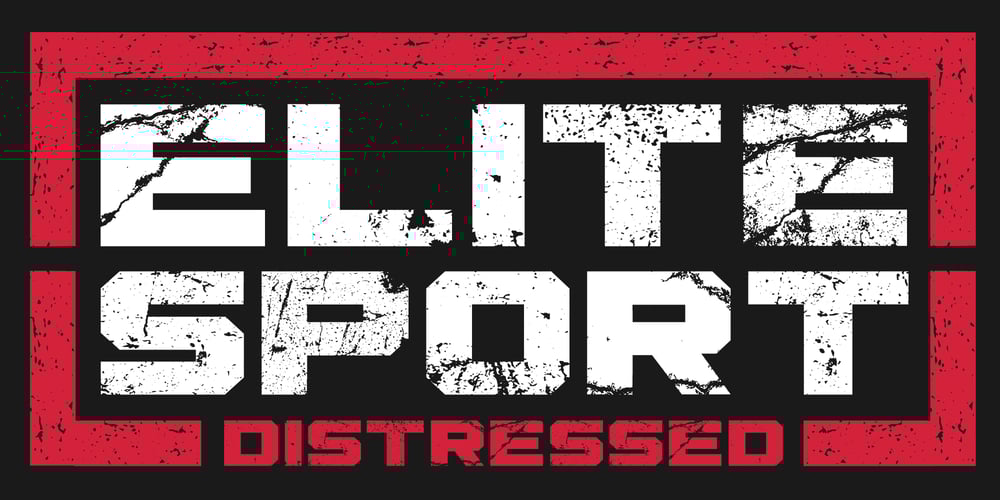
Elite Sport Distressed Font Family was designed by Swinn Jonathan and published by Alphabet Agency. Elite Sport Distressed contains 1 styles and family package options. Alphabet Agency presents Elite Sport Distressed, a super bold sans serif font design for use in extreme sport, combat sport and fitness themes. The font has a strong character defined by the straight edges and corners and expresses toughness with the harsh distressed effect.Elite Sport Distressed is an all caps font.The font contains Latin Simple characters.